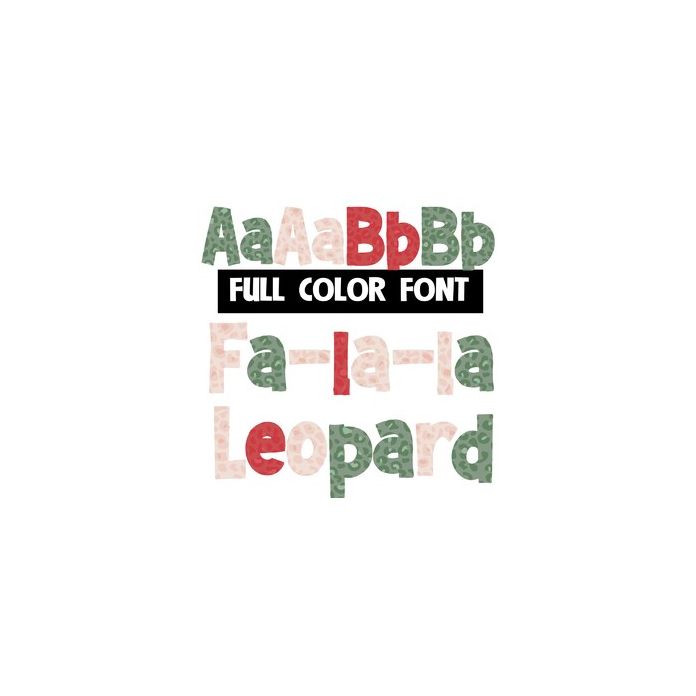
This full-color font features leopard spots in a Christmas color palette. There is a second version of each uppercase letter in a different color with a big swoosh available through Silhouette's glyph map.